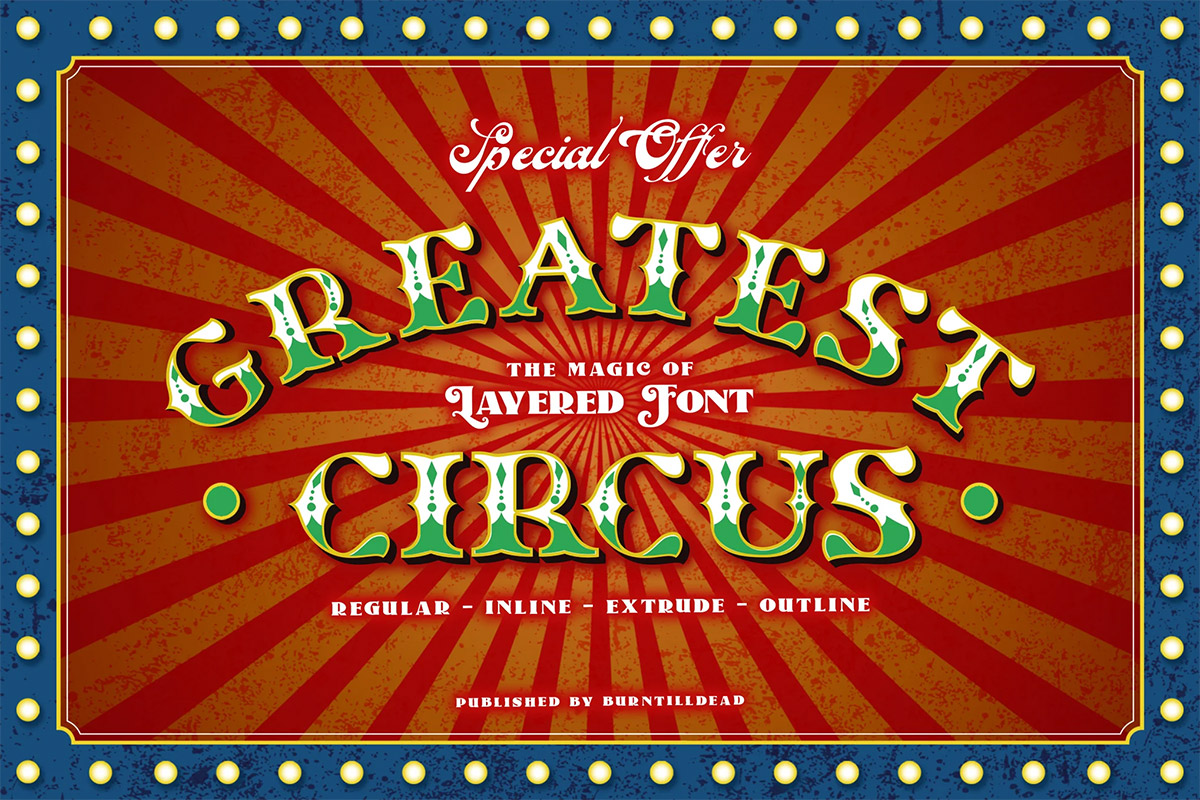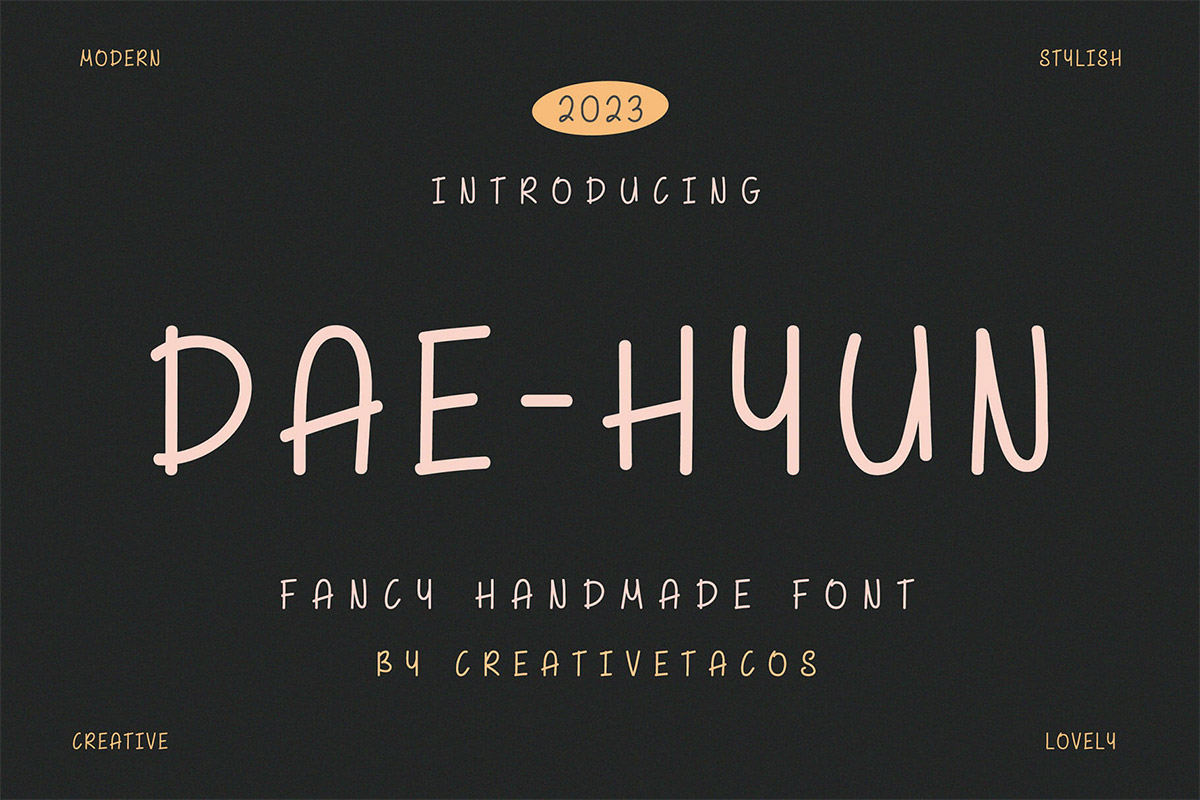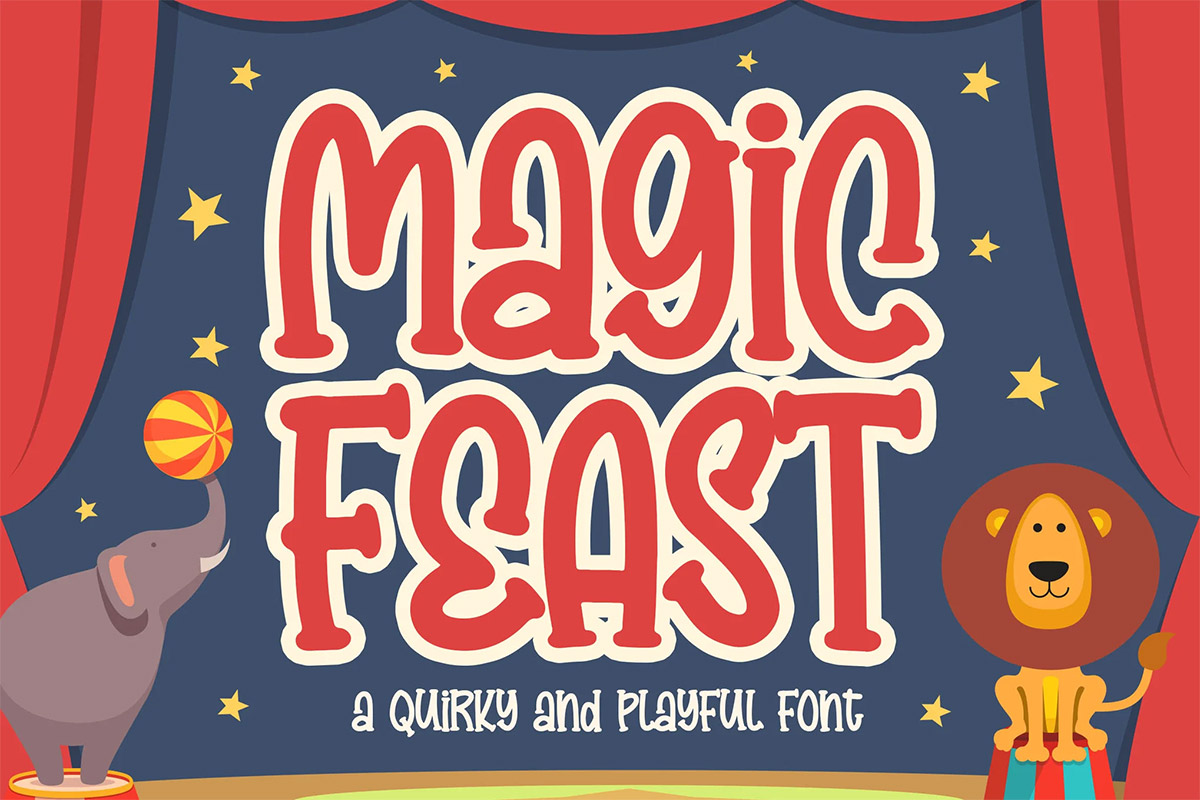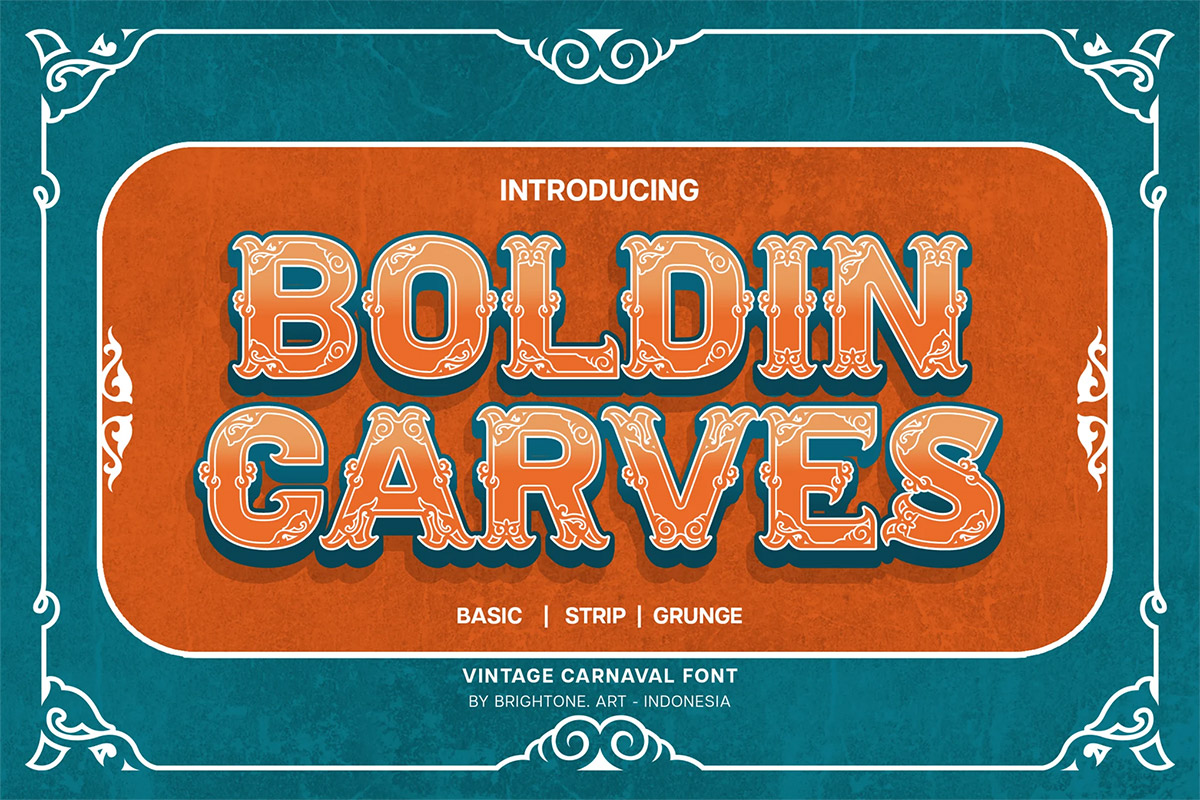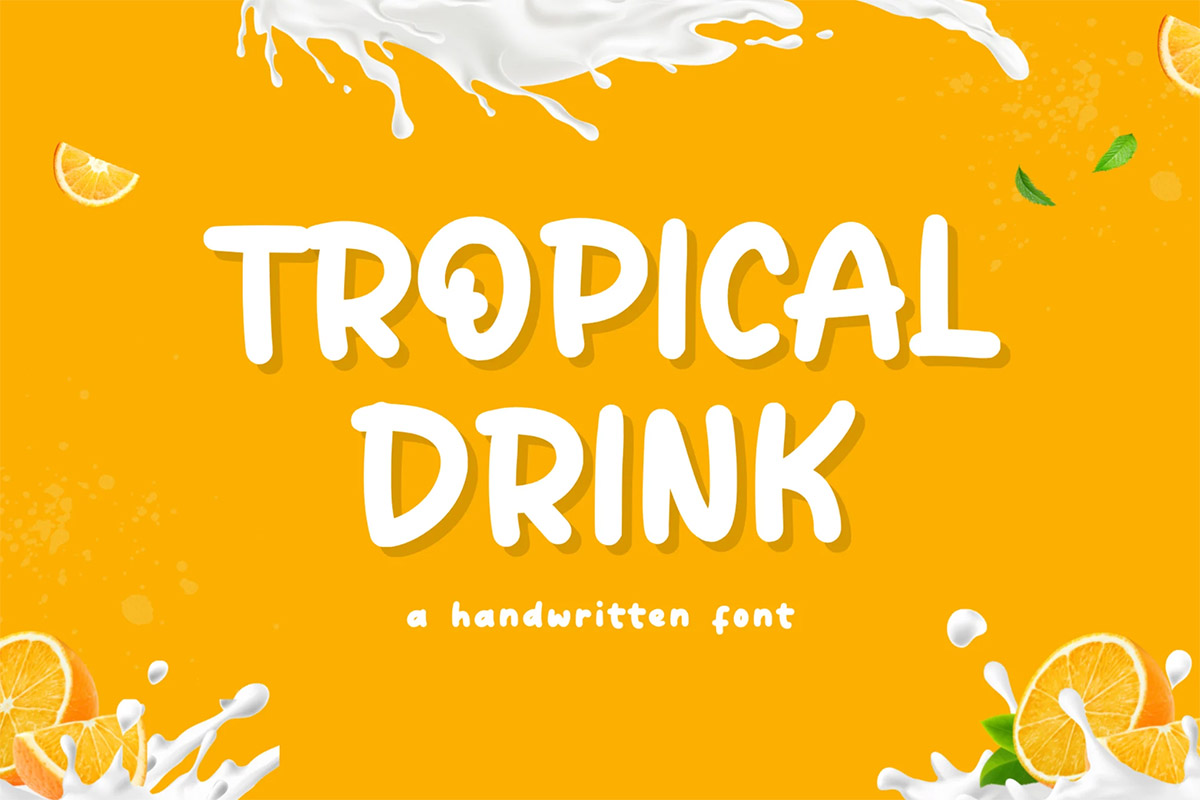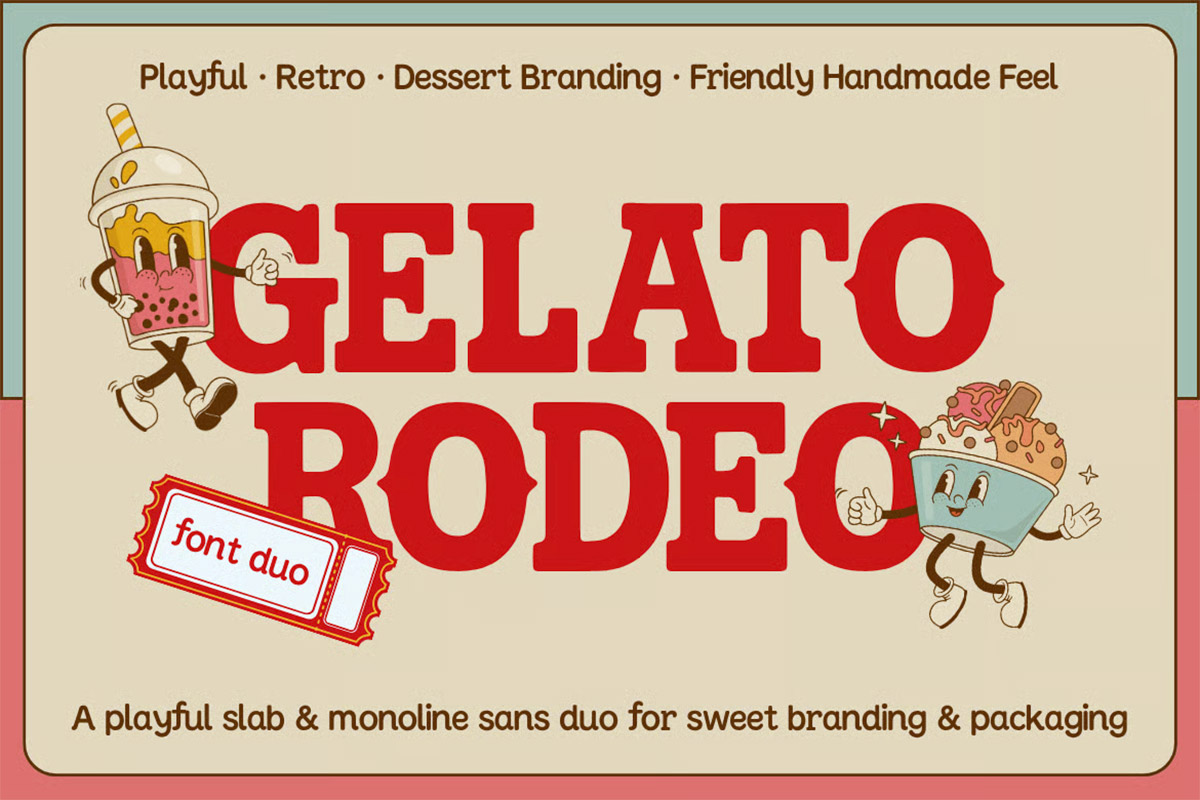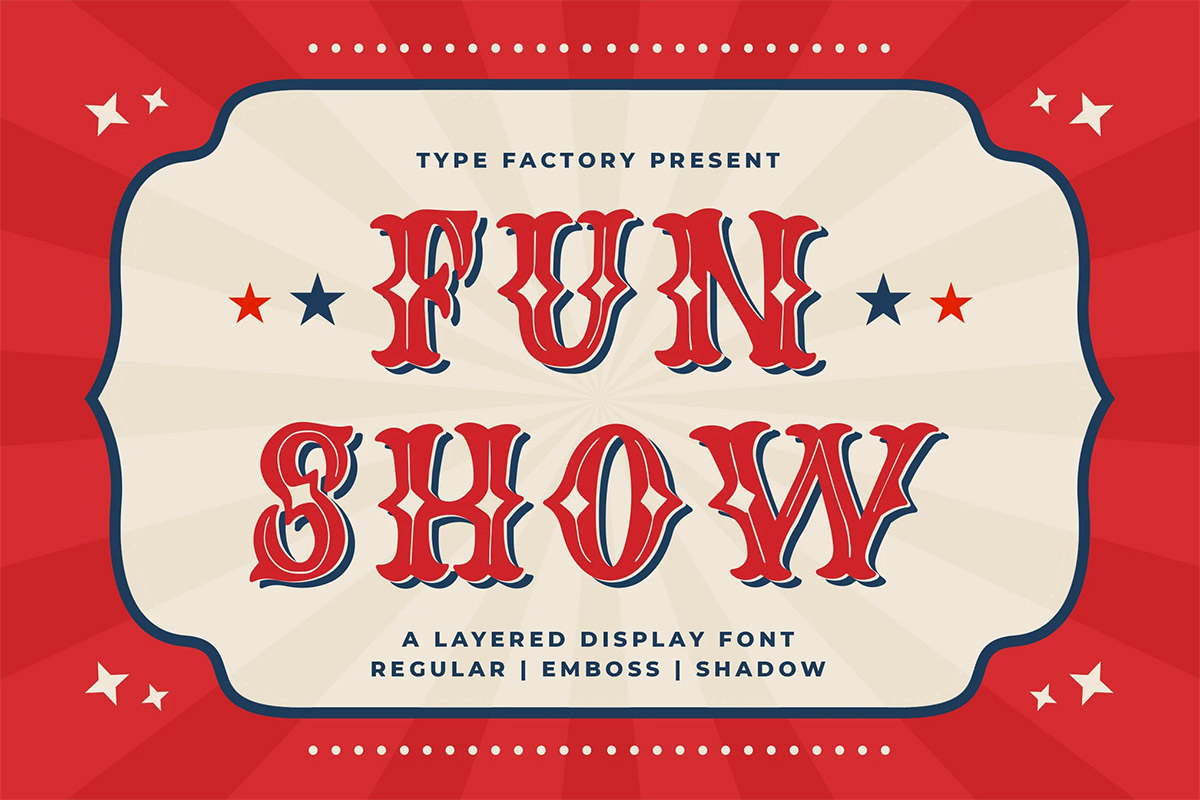
30+ Fun Carnival Fonts to Make Your Designs Pop
There’s something about carnival fonts that just makes you smile. Maybe it’s the bold colors, the quirky shapes, or the way each letter feels like it’s part of a celebration. If you want your designs to pop with fun, energy, and a little bit of magic, these fonts are exactly what you need.
I’ve always loved how a good carnival font can turn a simple invite, poster, or logo into something unforgettable. Whether you’re planning a party, creating event flyers, or just want to add a dash of joy to your next project, these fonts bring that classic festive vibe we all remember from fairs and festivals.
Below, you’ll find my favorite picks—some are free, some are pro, but every single one will help you capture that lively, joyful spirit. Take a look and see which ones make you feel like a kid again. Your next design is about to get a lot more fun!
Carnivale Font
Carnivale is a bold and decorative vintage circus-themed font inspired by classic carnival posters and retro marquee lettering. Perfect for event flyers, branding, packaging, invitations, and signage, this font brings a playful yet elegant touch to any design.
Acrobats Circus Font
Acrobats Circus Font is a cute and lovely display font that’s is perfect for your up coming projects. Such as logo branding, editorial design, stationery design, blog design, modern advertising design, card invitation, art quote, home decor, book/cover title, special events ( wedding, birthday, etc ), and any more.
Agiven Playful Font
The Playful Bubble Font inspired by Childhood Agiven draws inspiration from the joyful world of childhood, with its bubbly shapes reminiscent of playful innocence and carefree moments. Agiven brings a sense of whimsy and lightheartedness to any design project.
Greatest Circus Font
Introducing our latest font called “Greatest Circus”, inspired by the classic circus logo sign. Made with layered system it came in 4 different style; regular, outline, extrude & inline). It’s really playful once you join each style together. Greatest circus will be a great choice for carnival, music events, magician show, casino logo, etc.
Dae-hyun Fancy Font
Our new font, Dae-hyun Fancy Font, is a fresh, cute font that’s just waiting to make your project more exciting and creative. It contains uppercase letters, lowercase letters, numbers, punctuation, symbols with multilingual support.
Gavin Zoo Decorative Font
It is a decorative font that was inspired by lettering design that i saw on instagram, and it was crafted by hand to add a natural handmade feeling and i make it clean with pentool. Gavin Zoo font is very good looking in logotype, labels, decorative lettering, playful design, product packaging, invitation titled, advertising and others.
The Circus Font
Introducing The Circus Font, a cool and great font where all of the performers are happy to help with all of your design needs and with their quirky kicks and flicks, you’ll love them! Download now and use across a wide range of your work!
Magic Feast Font
Introducing of our new product the name is Magic Feast a Quirky and Playful Font, Magic Feast inspired by Bouncy quirky style with a fun theme very good for Logotype, kids poster, flyer, childrenbook, cartoon, comic etc.
Boldin Carves Vintage Carnaval Font
Boldin Carves Carnaval Font is a vintage and retro looking carnival font by Adilson Gonzales based on slab serif font with some decorative style. You can use this font style for lyrics of modern or classical music or for your logo lettering, logo, label, packaging, sticker, branding and many more.
Jester Jumble Font
Jester Jumble – Fun Clown Font is a whimsical and playful typeface designed with a clown and circus theme in mind. Its quirky characters add an element of chaos and fun to your designs, making it perfect for projects that require a playful touch. Perfect for clown-themed designs, such as invitation cards, birthday invites, party decorations, logos, stickers, packaging, children’s books, magazines, and more.
Santano Christmas Font
Santano Christmas Font is a cool christmas font, inspiring from playful and winter style typography perfect for a design that makes it more attractive and aesthetics and making it very suitable for winter theme, christmas, book cover, children book, comic, poster, packging, merchandise, logotype and much more.
The Circus Show Display Font
Introducing a new Display Typeface called “The Circus Show”. Inspired from american circus, carnival typography and tatto from 80’s. The Circus Show best uses for Logotype, heading,cover, poster, logos, quotes, product packaging, header, merchandise, social media & greeting cards and many more.
Makeba Font
Makeba Font is a playful and bouncy display font that exudes joy and positivity. Its quirky, rounded letterforms and fun baseline shifts give your designs a cheerful, light-hearted appeal. Whether you’re working on children’s books, playful branding, or any project that needs an extra touch of happiness, Makeba is here to bring the fun.
Mokupoku Display Font
Mokupoku Display Font is a playful, cheerful, and uniquely quirky display font crafted for fun-loving designs! This font is ideal for children’s projects, cartoon titles, game interfaces, birthday invitations, toy branding, and any project that needs a dose of whimsy and happiness.
Cultures Carnival Festival Font
Cultures Carnival is a vibrant and expressive typeface that captures the essence of ethnic diversity and cultural celebration, perfect for adding a touch of joy and uniqueness to any design project. This font is very suitable for making a cultural event, poster event, book cover, movie title, magazine layout, packaging, food & beverages, quotes, or simply as a stylish text overlay to any background image.
Related: 19 New Free Commercial Fonts for 2024
Tropical Drink Handwritten Font
Tropical Drink Handwritten Font is a fun and playful display font perfect for product packaging, product designs, label, photography, watermark, special events, or anything.
Bouncy Kids Playful Display Font
Jump into a world of fun with Bouncy Kids – a cheerful and lively font designed to spark joy in every project! With its bouncy letters and whimsical charm, this playful typeface is perfect for bringing smiles to kids and adults alike.
Fun Beach Handwritten Font
Fun Beach is a unique and playful display typeface perfect for titles, large text, branding, logotypes & graphic design purposes such as posters, pamphlets, and advertisements. This letter font can be a great choice for creating amazing logos, promotional content, and marketing presentations that can bring uniqueness and freshness at its best.
Good Prize Playful Display Font
Good Prize is a funny, bold, and cute display font with a unique twist. Get inspired by its unique feel, and in turn, add a lovely charm to any crafts project!
Gelato Rodeo Font Duo
Say hello to Gelato Rodeo, a fun and flavorful font duo inspired by dessert shops, retro signage, and cheerful branding! This duo combines a bold, chunky slab serif display with a smooth monoline sans-serif—perfect for projects that need a little charm, a little cheer, and a lot of personality.
Loving Drama Playful Font
Loving Drama Font is a playful, sweet, and quirky font that will work perfectly for kids projects or any business that wants to appear fun and playful.
Rollienk Playful Sans Font
Rollienk is a delightful playful sans font that exudes charm and fun. With its rounded edges and whimsical letterforms, this typeface is perfect for children’s designs, playful branding, invitations, and any project that aims to evoke joy and creativity.
Kartoon Display Font
Kartoon Display Font is inspired by bold and fun marker with bold and strong style that brings joyful and happiness to all of us. This font is ideal for display, text, print, branding, signage, with a set of optimal characters for your design in any layout
Fun Show Display Font
Fun Show Display Font is an amazing layered display font with playful feels for your following design project. This font looks spectacular in packaging design, displays, and logotype. Keep your designs fresh and current with a fun vibe with this font.
Bunny Hoops Font
Say hello to Bunny Hoops Font inspired by the warmth of easter made with love and joy. Kids look, so it will make your design more beautiful, cute, fun, and colorful.
Swingsnug Playful Display Sans
It is a Playful Display Sans is a cool and charming font that will take any DIY-project to the next level! Swingsnug is perfect for craft , product packaging, product designs, label, branding projects, logo, wedding designs, social media posts, advertisements, watermark, invitation, stationery and any projects.
Richis Stiller Playful Font
Hello, introduce our font “Richis Stiller” this font has a playful nuance so it looks more cheerful and friendly. Fonts that have a slightly irregular shape to display a unique impression on the character of the font and it is very suitable for use as book titles, product names, packaging, posters and so on.
Heboh Display Font
Heboh Font is a cute and playful font that is perfect for a variety of design purposes, such as logos, branding, social media, and more. This font has a cheerful and fun character, so it can make your designs more eye-catching and engaging.
Peronas Font
Proudly present Peronas a new display font Inspired by American circus and carnival typography. This font is good for logo design, social media, movie titles, books titles, short text even long text letters, and good for your secondary text font with the script, sans, or serif.
Chocolate Grande Display Font
Introducing “Chocolate Grande,” a playful and bold display font that merges the charm of handwritten script with a retro-modern twist. Ideal for posters, kids’ school projects, and notes, this font infuses your designs with a touch of whimsy and creativity. Its legible characters retain a personal touch, evoking nostalgia for handwritten notes and school days.
Mister Playgo Font
Introducing “Mister Playgo,” a playful modern display font designed to bring a sense of fun and vibrancy to your design projects. Good for graphic designers, illustrators, and creatives who want to add a lively and contemporary touch to their work.
Beesky Playful Rought Font
The Beesky Font is a playful and rough typeface that will add energy and vibrancy to designs. This font is suitable for a variety of creative uses like flyers, quotes, posters, banners, branding, packaging, or impactful headlines.
Salty Unicorn Playful Typeface
Salty Unicorn Font is a playful, dazzling and charming display font that will turn any creative idea into a standout! Add it confidently to your projects, and you won’t be disappointed. You can use this font to make a logo for branding, quote, flyers, quotes, posters, banners, packaging and many more.